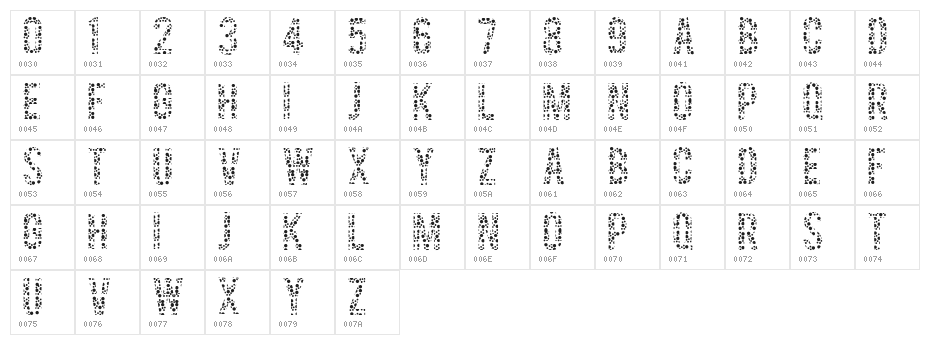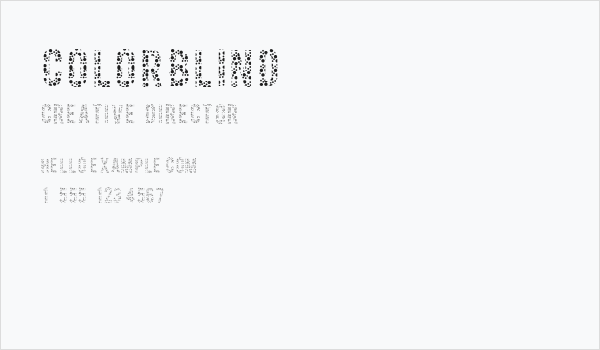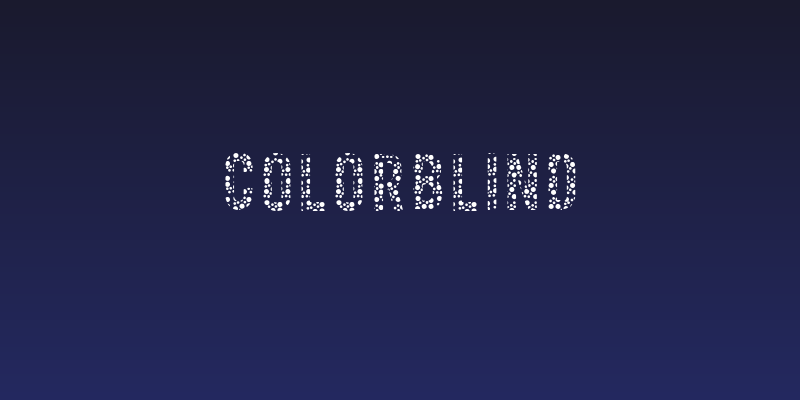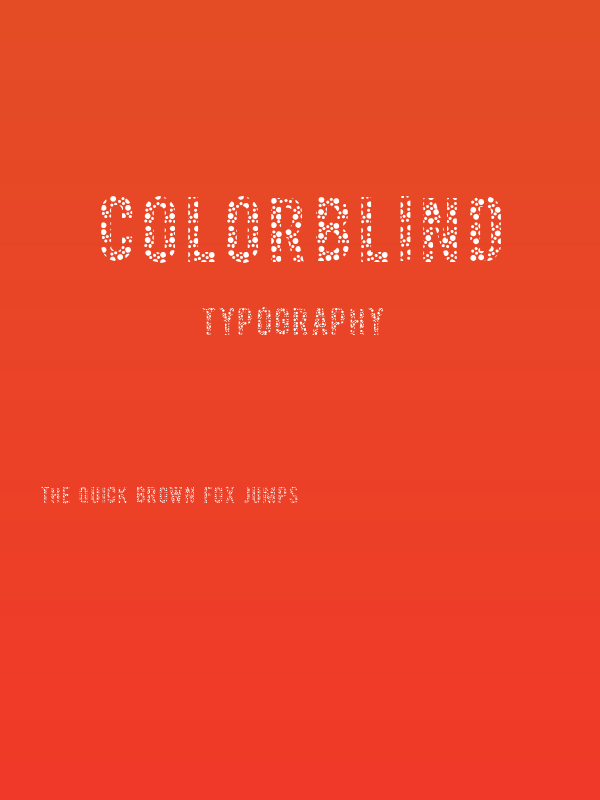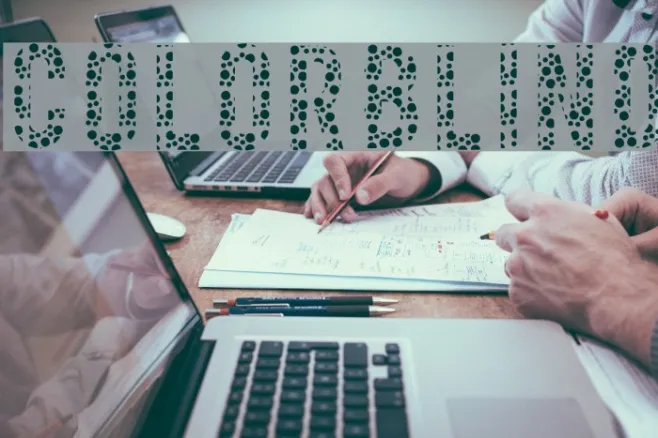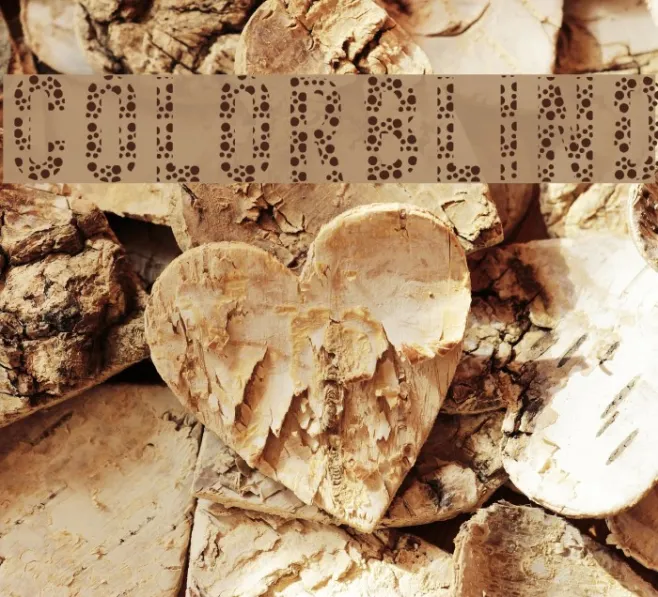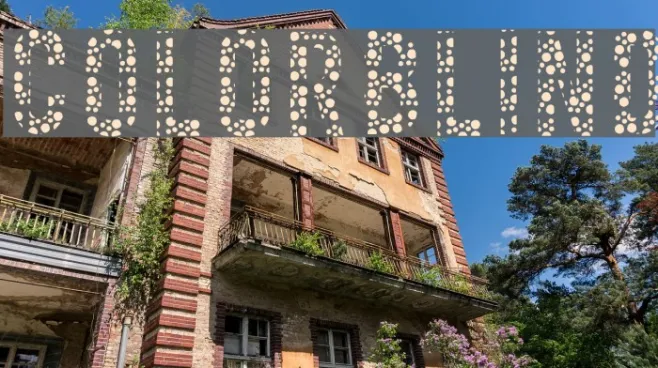
ColorBlind Font
ColorBlind Description
This font features a unique and playful design, characterized by its dotted pattern that forms each letter and number. The dots are evenly distributed, creating a cohesive and visually intriguing appearance. The style is bold and eye-catching, making it suitable for creative and artistic projects. The uppercase and lowercase letters maintain a consistent size and shape, ensuring readability despite the decorative elements. The numbers follow the same dotted pattern, providing uniformity across the entire character set. Special characters are also included, adhering to the same design principles.
| Proposed Projects | Ideal for posters, event flyers, children's book covers, and artistic branding. |